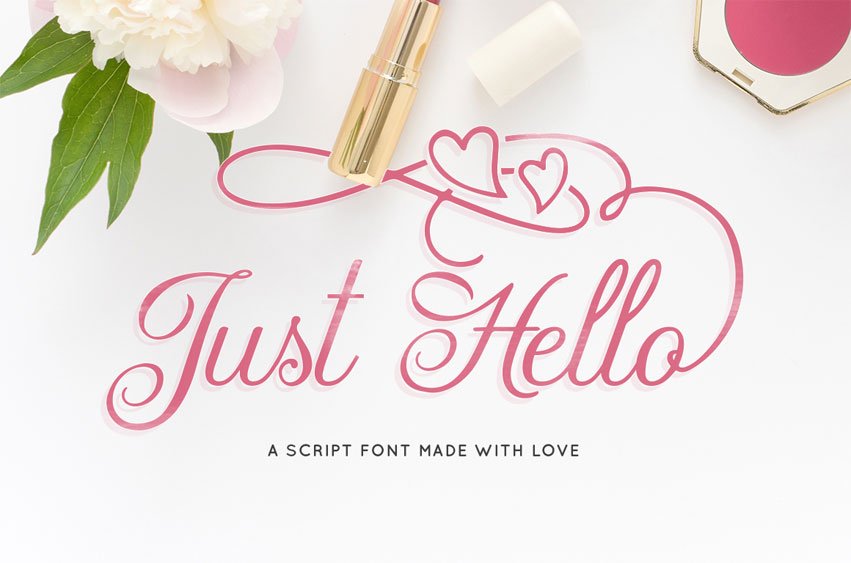
Just Hello Font
Just Hello Font is stunning font, that’s great for a large range of different designs, comes packed with stunning elegant swashes and swirls.
Every letter has a unique and beautiful touch, which will make your design come alive!